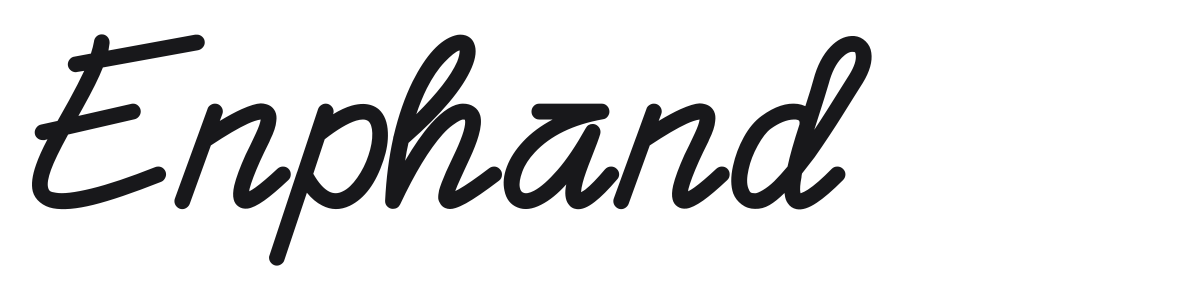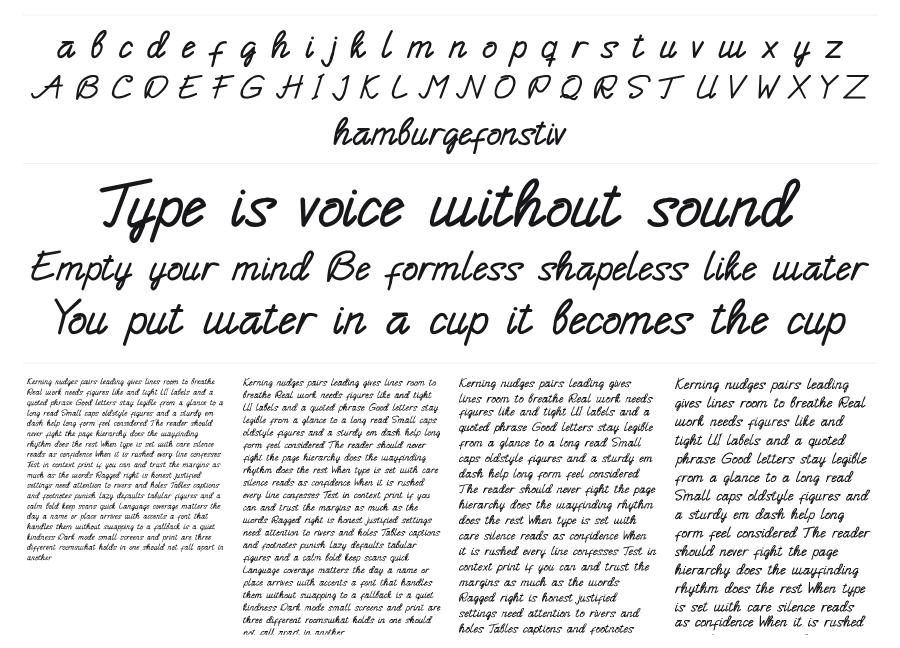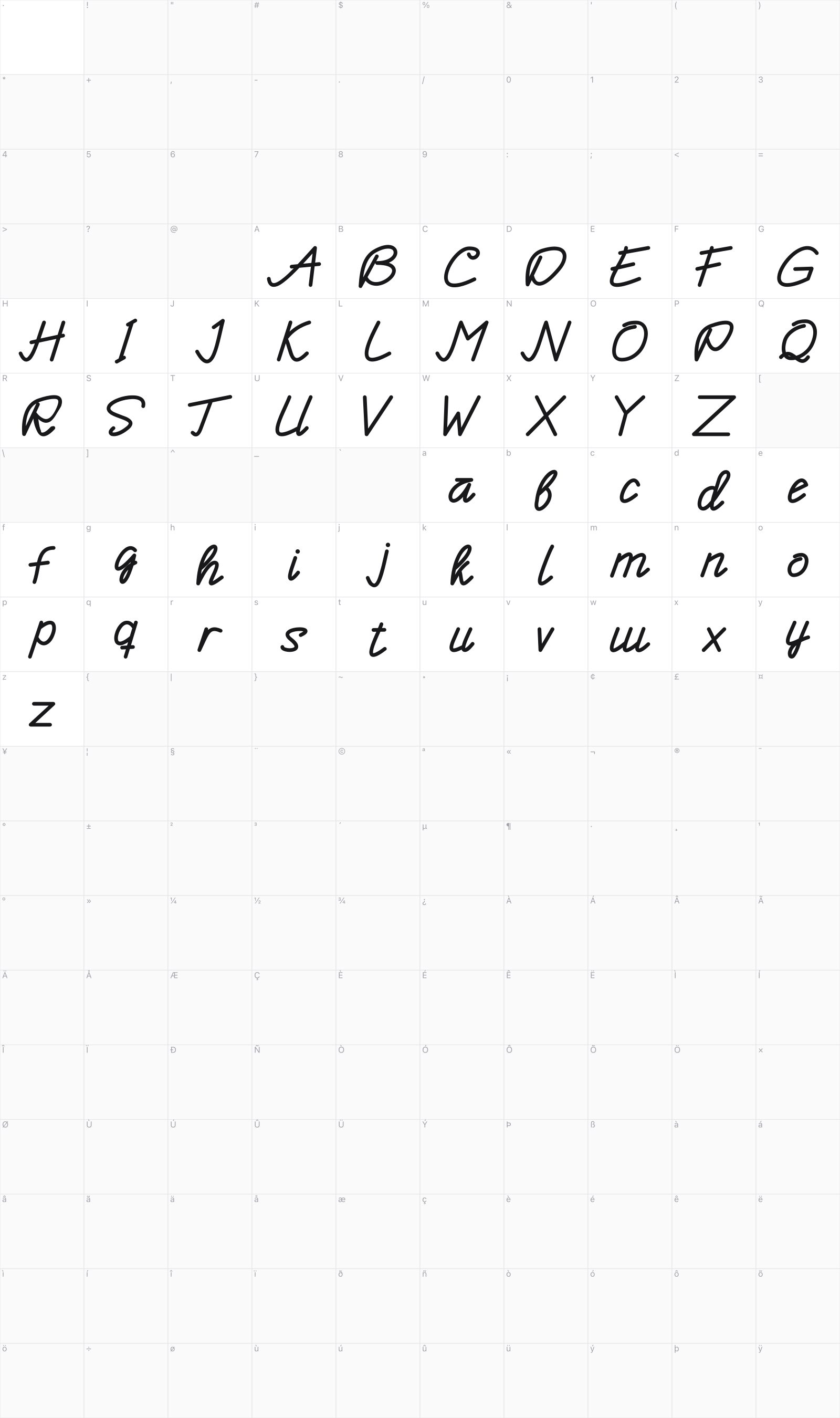
Enphand
by Rohmat Sidiq Mustaqim
Enphand is a casual connected script with a relaxed, hand-penned flow and gently rounded strokes. Its medium weight and natural variation give it an approachable warmth without tipping into overly formal calligraphy. Works well for logos, product packaging, and anywhere a human touch is the point.